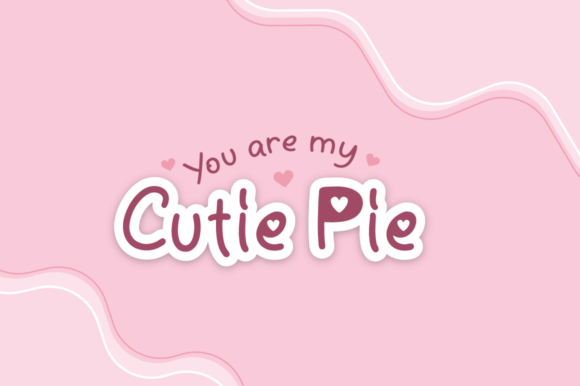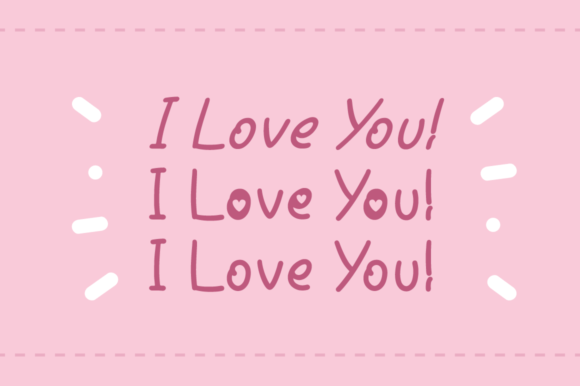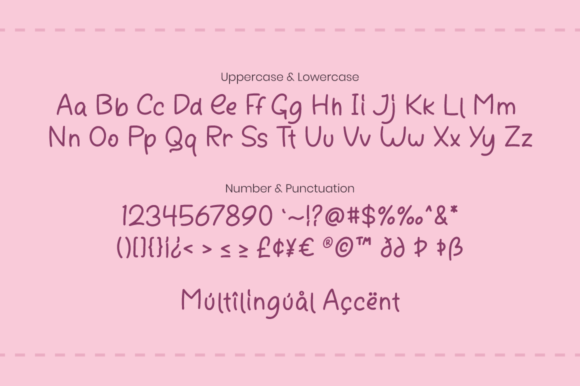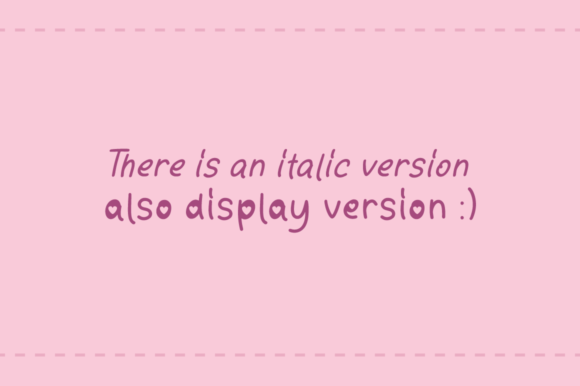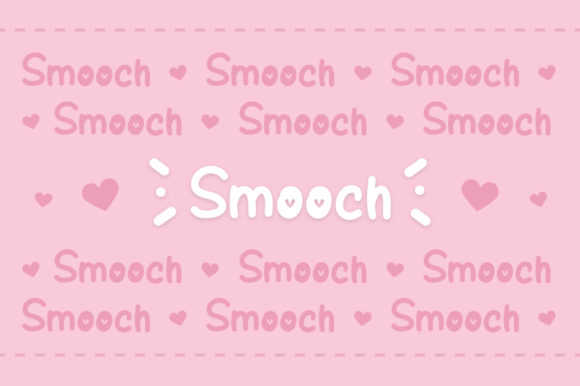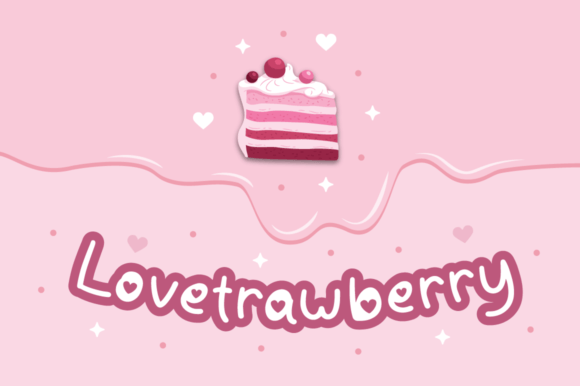
Introduction to Pinky Lava Font
As designers, we’ve all been there – staring at a blank canvas, struggling to bring our creative vision to life. But what if you had the perfect tool to give your project that extra oomph? Enter the Pinky Lava Font, a stunning typeface that’s sure to capture hearts and add a touch of whimsy to any design.
With its unique love-shaped holes in select letters, this high-quality font is a game-changer for designers looking to add a romantic twist to their creative projects. Whether you’re working on a free download for a Valentine’s Day theme or creating a logo for a new love story, the Pinky Lava Font is the perfect design resource to have in your arsenal.
What sets Pinky Lava Font apart is its versatility – available in both italic and display versions, with multilingual support to boot. This means you can use it for a wide range of design projects, from social media graphics to wedding invitations, with complete confidence that it will look professional and stunning every time.
Key Features of Pinky Lava Font
- Pink and lava-inspired color scheme, perfect for creative projects with a unique twist.
- Unique and creative font style, ideal for adding a touch of personality to designs and creative projects.
- Perfect for use in graphic design, digital art, and other creative pursuits where a distinctive font is desired.
Honest Review: Pinky Lava Font
I recently stumbled upon the Pinky Lava Font, a high-quality, free download that’s perfect for any creative project. I was immediately drawn to its vibrant and playful design, making it a great addition to my design resource library.
- ⚠️ Limited character set, may not be suitable for large-scale projects
- ⚠️ Not as versatile as some other fonts, may not be suitable for complex designs
Overall, I’m impressed with the Pinky Lava Font. It’s a great addition to any designer’s library, and its free download makes it a must-have for anyone working on a creative project. While it may have some limitations, its high-quality design and transparent background make it a valuable resource for designers.
Pinky Lava Font
The Pinky Lava Font is a high-quality, free download design resource ideal for creative projects. Its unique design and transparent background make it a versatile asset for any designer.
Tips for Getting the Most Out of Pinky Lava Font
To get the most out of the Pinky Lava Font, consider the following tips:
- Use the font in combination with other design elements to create a visually appealing design.
- Experiment with different font sizes and styles to add depth to your design.
- Use the transparent background to create a sense of layering in your design.
The Pinky Lava Font is ideal